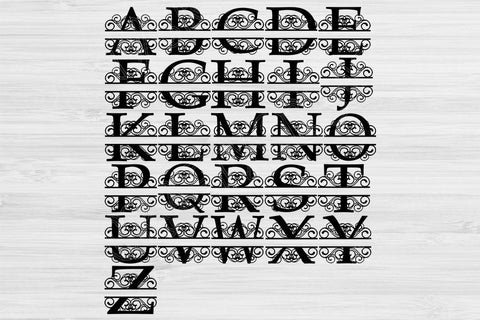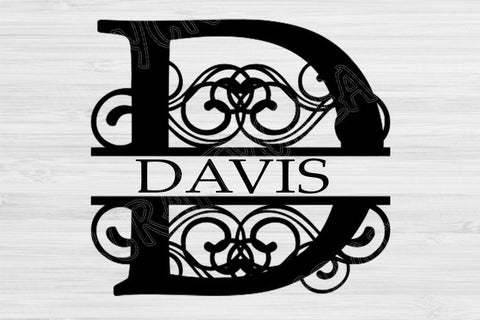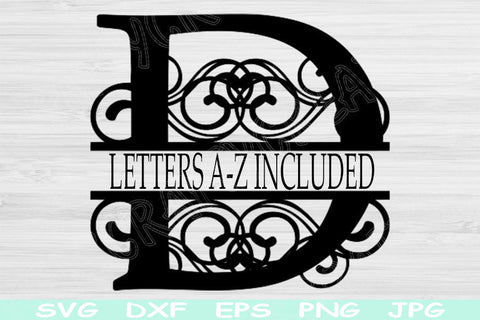
This monogram font svg cut file that is  26 upper case split letter svgs is the perfect cricut cut files to customize gifts. It would look great on a wood sign, metal pail, or plate. This purchase will allow you to use vinyl, paper, or your other favorite medium.
This is the entire alphabet.